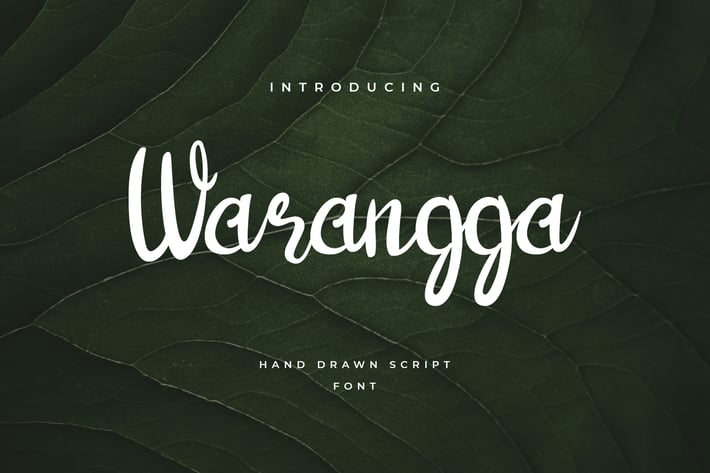
Warangga Hand Letter Script Font
Introducing Warangga! A hand-lettered script font with contemporary, enlightened accents. Very suitable to be used for the manufacture quote text, logotype, t-shirt design and concept handmade designs, ect.